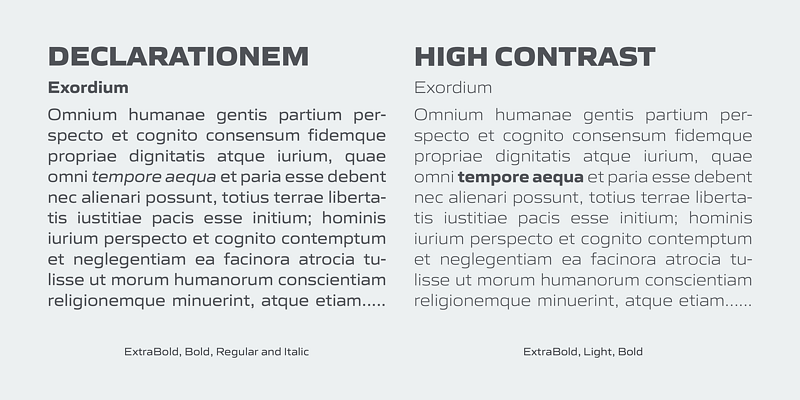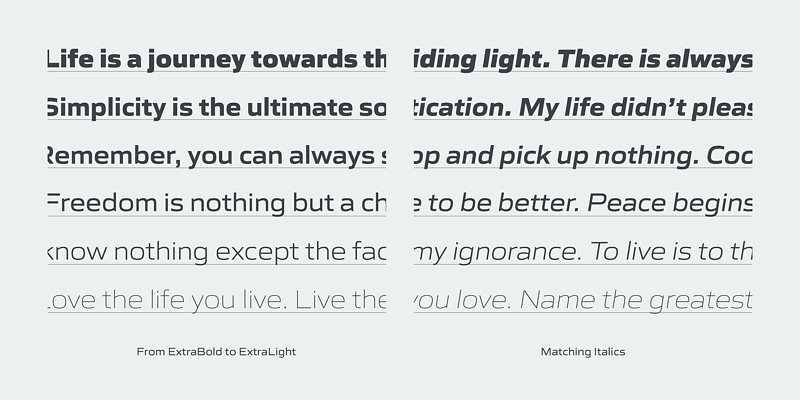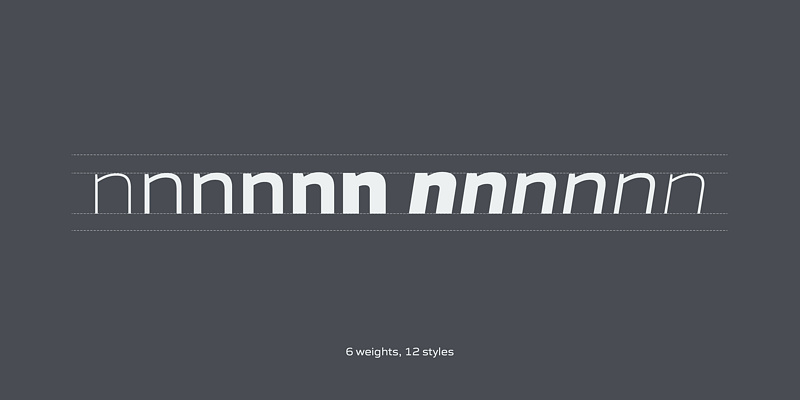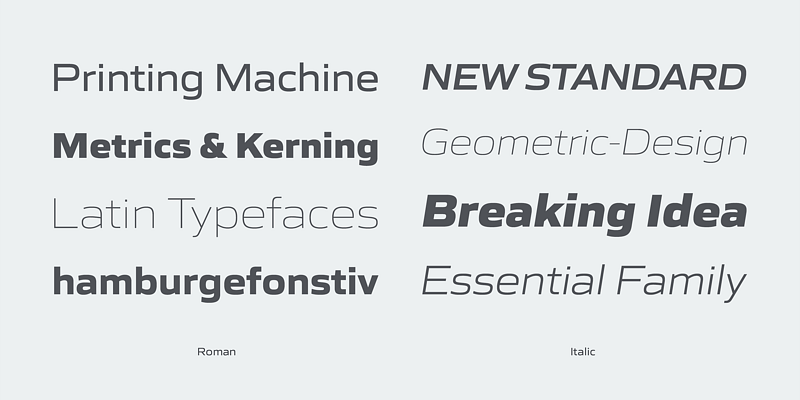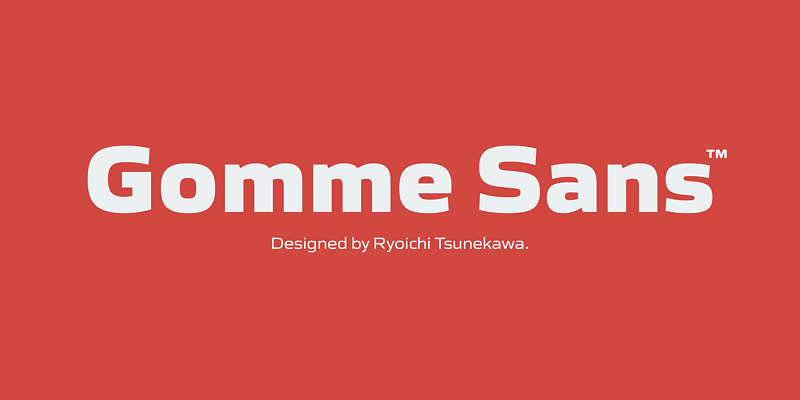
Gomme Sans is a wide and masculine sans-serif family. The basic concept of this family is not only to make an impact but also to be legible even on small size screen by the sophisticated design.